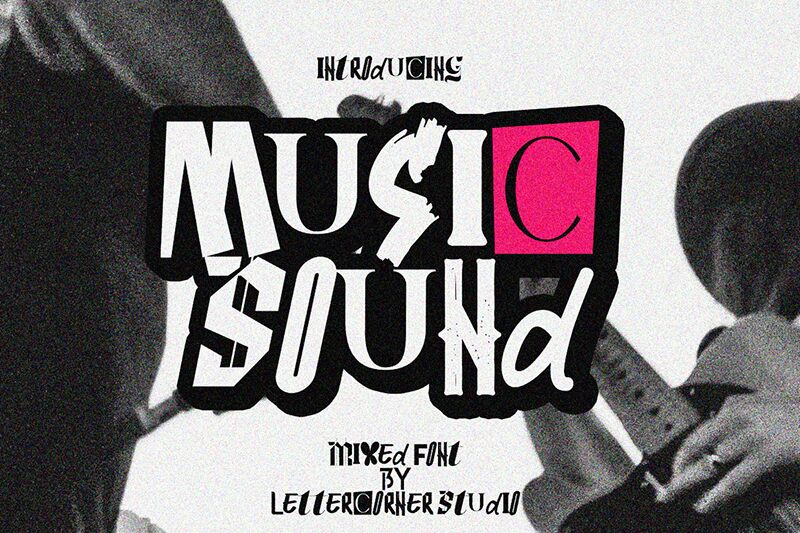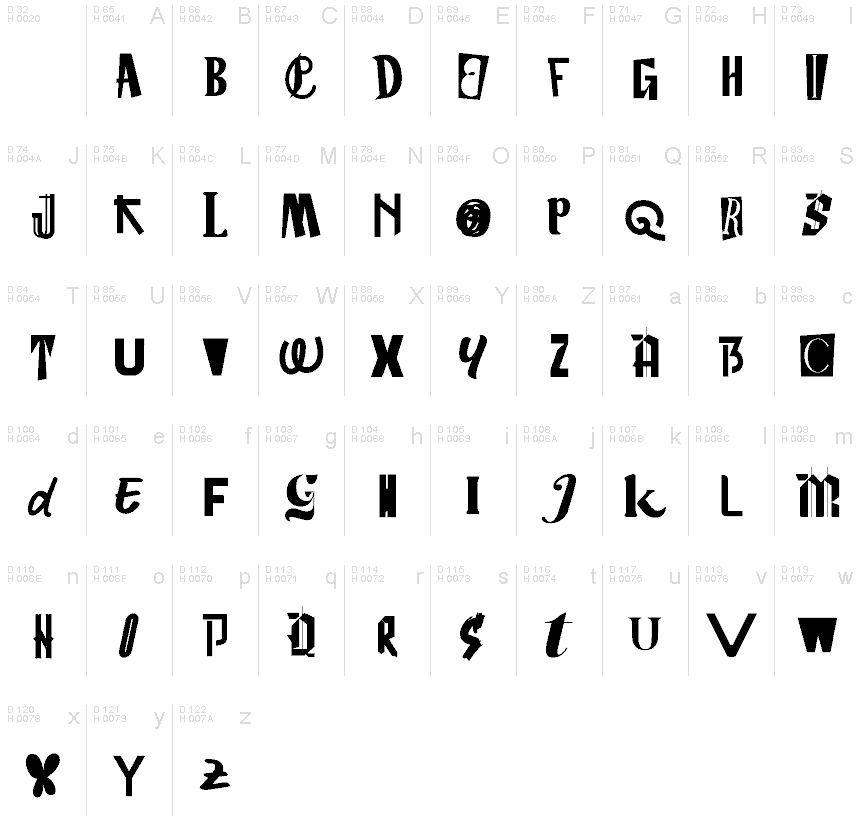
Music Sound font designed by Mocha Frappuccino is a free display font with an obvious quirky, eclectic vibe. Each letter adopts its own distorted shape while keeping the font appealing and readable thanks to the artistic touch and strokes’ widths. The forms are playful, experimental, and varied which gives off that abstract avant-garde feel.
Titles or headings of movie posters from the horror genre are among those use cases where this font will shine. It’s additionally useful for poster designs on art exhibitions, music festivals, or even as the logo of a unique brand.